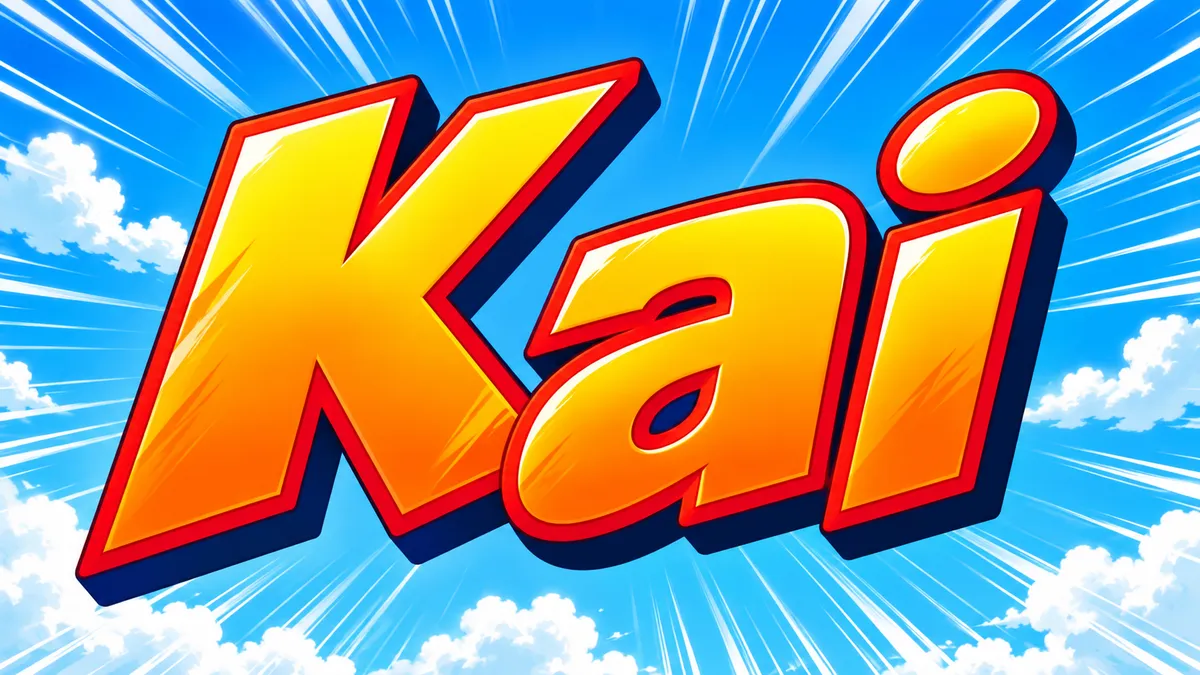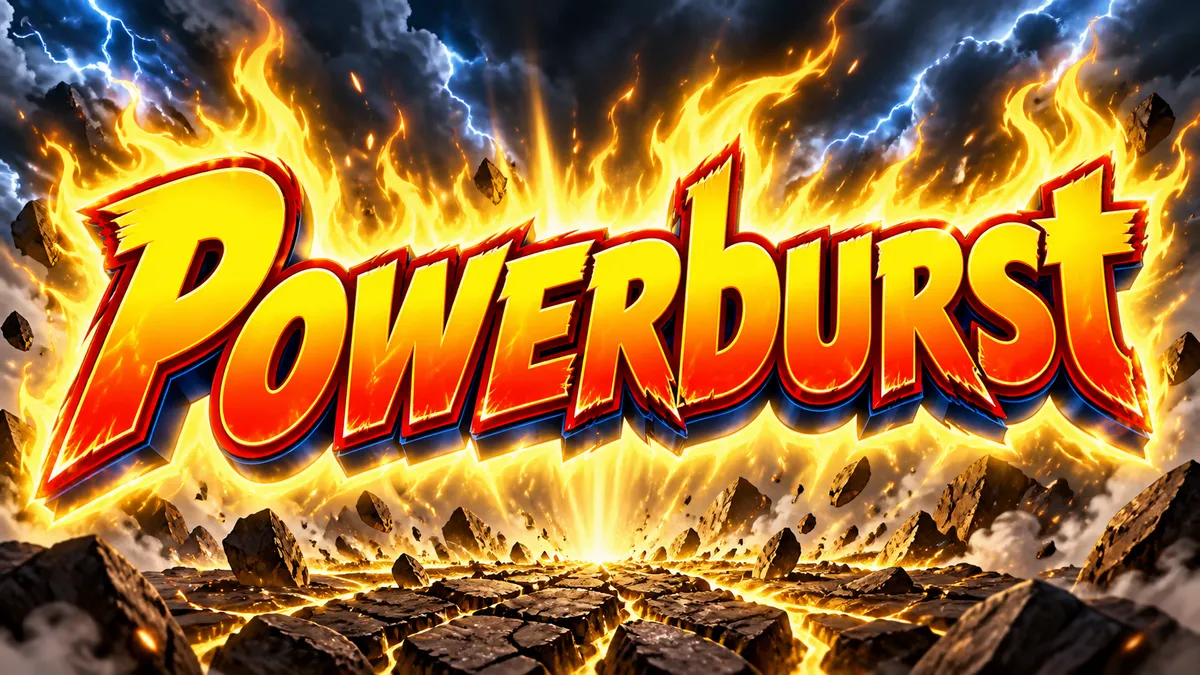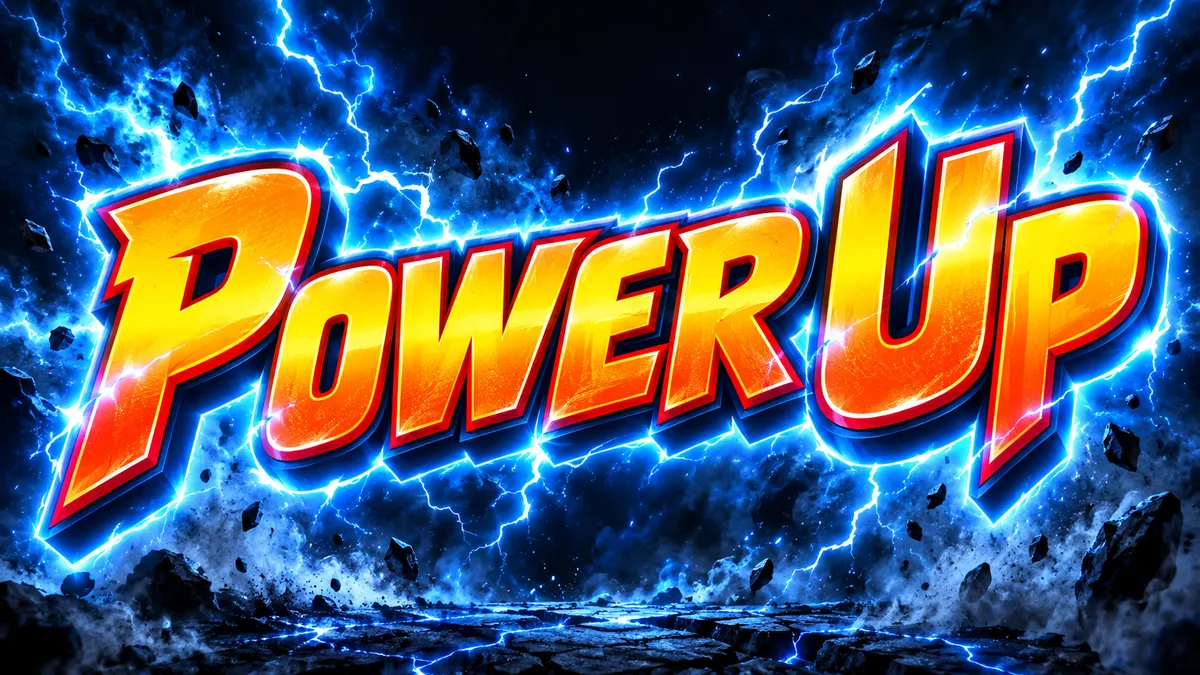
Dragon Ball Font Generator
Chunky, rounded anime action capitals in orange, yellow, and red, inspired by the classic shonen logo. Fan-made.
The Dragon Ball font in most searches, including the Dragon Ball Z font people remember from the 90s, is the classic shonen logo treatment: chunky rounded capitals, a bright orange-to-yellow fill, a thick red outline, a blue-black drop shadow, and a slight upward tilt that makes the whole word feel like it is about to launch. Fontique does not provide that typeface or reproduce the logo. Our AI renders your own name in an original anime action style inspired by that language.
Presets cover the power levels. Classic Orange is the bold, friendly base look, Super Aura wraps the letters in a golden energy flame, Blue Surge switches to a cool blue glow with electric arcs, Manga Ink is the black-and-white screentone version, and Battle Damage cracks and scorches the letters mid-fight.
Each preset changes material, lighting and backdrop while keeping "Kai" perfectly legible.
Classic Orange
bold orange-yellow letters with a thick red outline and hard navy shadow, clean and cheerful, slightly tilted
Super Aura
letters wrapped in a blazing golden energy aura with rising flame tongues and sparks, intense power-up glow
Blue Surge
letters glowing electric blue with crackling white arcs and a cool aura, intense and focused
Manga Ink
black-and-white inked letters with screentone shading, speed lines, and bold brush outlines, printed manga page feel
Battle Damage
orange letters cracked and scorched with glowing fissures, dust and debris flying, mid-battle impact
The Classic Orange and Super Aura presets are inspired by the chunky, tilted, orange-and-red lettering people associate with that era, while Blue Surge leans toward the newer series palette. All of them are original renderings rather than copies of any logo.